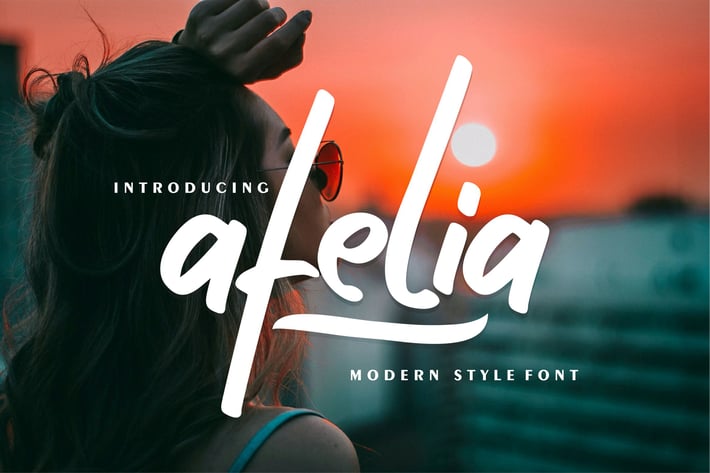
Afelia | Modern Style Font
Afelia | Modern Style Font with a calligraphy style, So beautiful on invitation like greeting cards, branding materials, business cards, quotes, posters, and more!